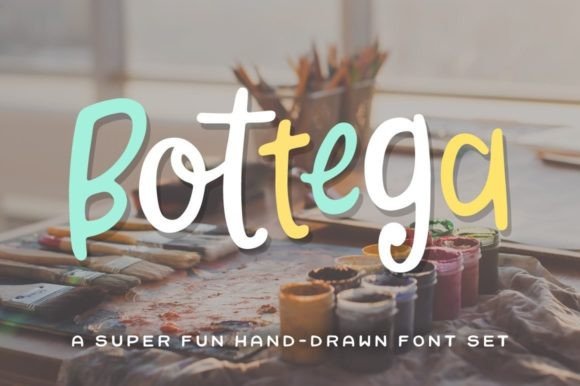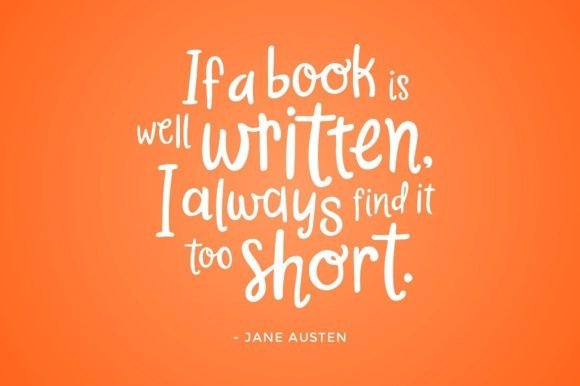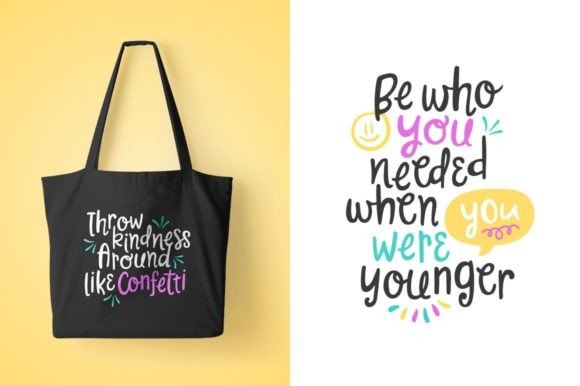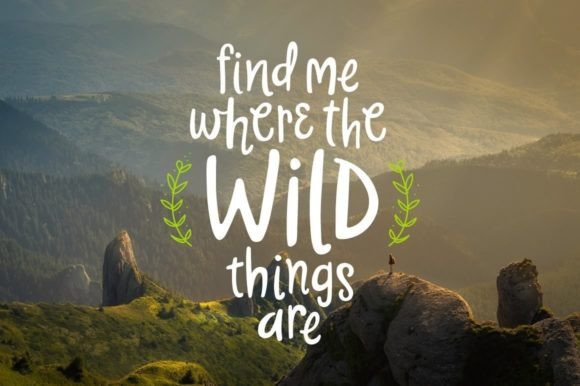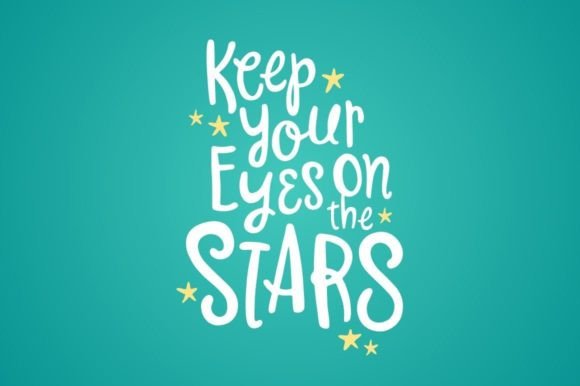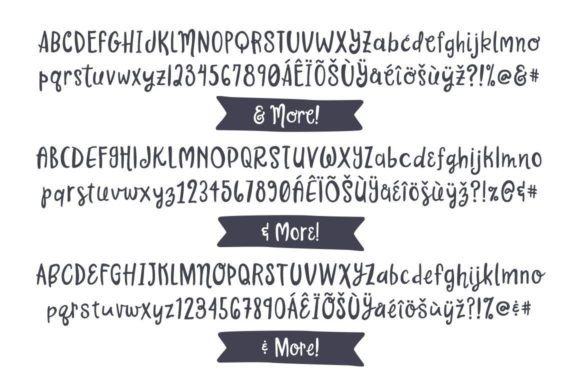
Bottega Font
“Bottega” is a super fun and playfully hand-drawn font that injects a sense of joy and creativity into your designs. What makes it stand out is its unique flexibility—featuring three sets of both lowercase and uppercase letters, offering a total of six variations for each character. This abundance of options allows you to mix and match the characters from all three sets, enabling your designs to truly embody that authentic and distinctive “hand-drawn” feel.
The versatility of “Bottega” is evident in its ability to adapt to various design contexts. Whether you’re working on posters, branding, invitations, or any creative project that benefits from a touch of whimsy and individuality, this font is ready to elevate your work.
By providing multiple variations for each character, “Bottega” ensures that your text doesn’t look repetitive, adding an organic and dynamic quality to your typography. The variations allow you to create compositions that feel genuinely handmade, each character having its unique nuance and personality.
This font’s playful nature opens up a realm of creative possibilities, making it a fantastic choice for projects where a lively and hand-drawn aesthetic is desired. Whether you’re designing for print or digital media, “Bottega” brings a sense of spontaneity and fun to your typography.
In summary, “Bottega” is not just a font; it’s a design tool that empowers you to infuse your projects with a playful and hand-crafted vibe. With its multiple character variations, this font invites you to explore and experiment, creating compositions that stand out with a truly unique and “hand-drawn” feel. Embrace the fun and creativity that “Bottega” brings to the table, and let it be the spark that enlivens your design endeavors.